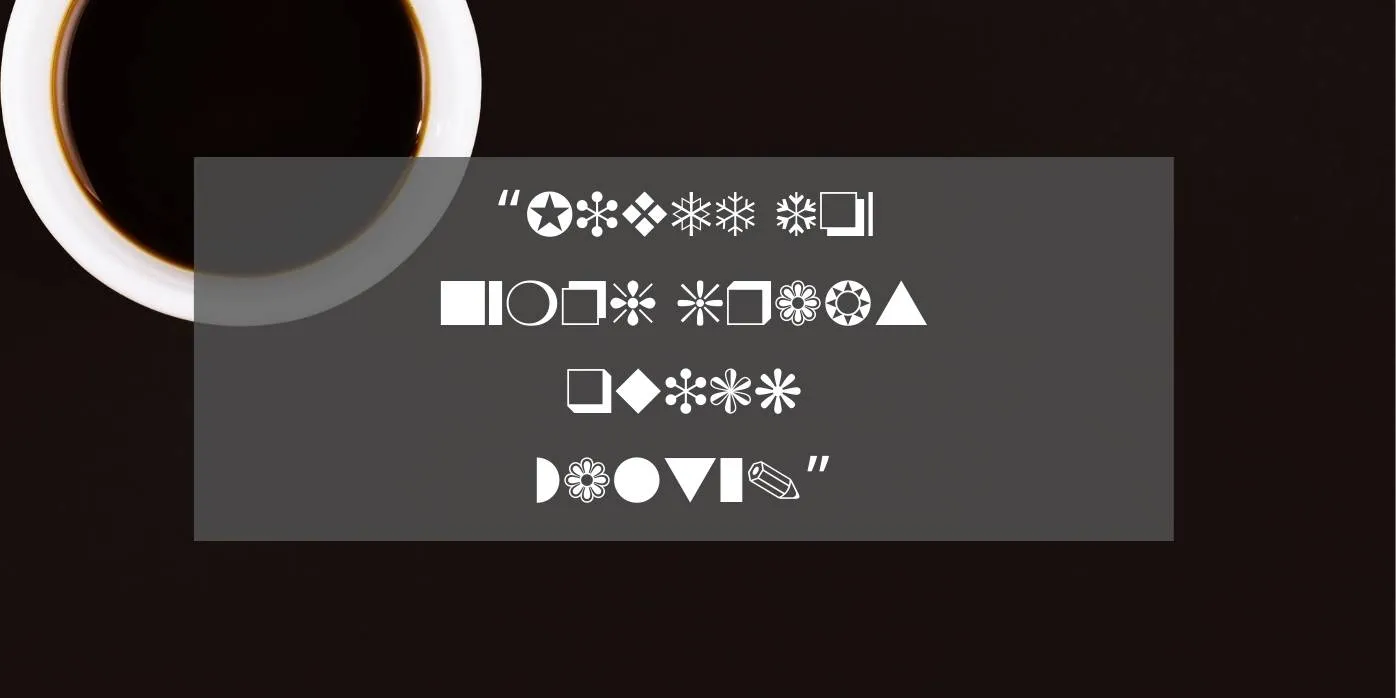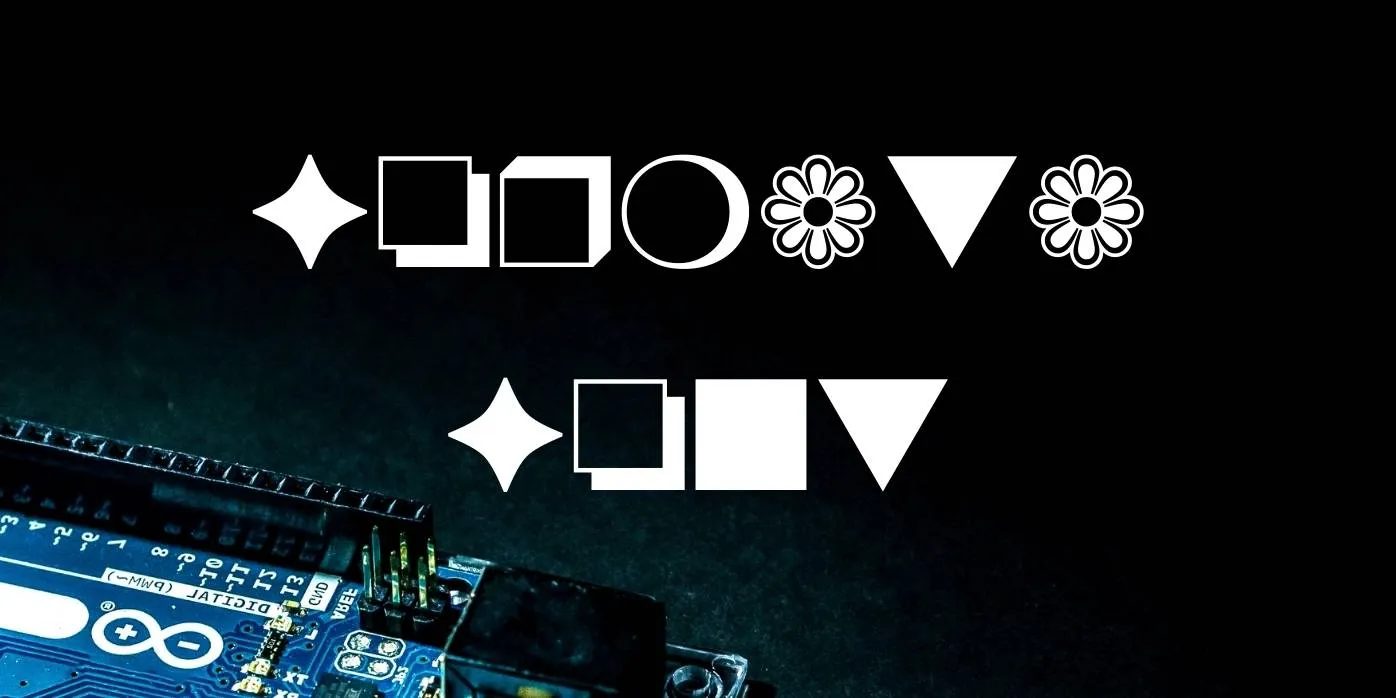
Zapf Dingbats Font
Zapf Dingbats Font is one of the lesser-known fonts that was designed by Hermann Zapf. This typeface belongs to the Dingbat typeface. It has a unique look and feel, which can make it a great choice for certain types of designs. This stunning typeface is the best and most popular for its copy and pastes function.
This cozy Font is available in both regular and bold weights, which can be useful depending on your design needs. This font is also relatively easy to find, so you shouldn’t have too much trouble locating it if you need it for a project. This typeface was firstly released to the public in 1984. This typeface is best for Adobe.
This stylish Font has a lot of characters. So, if you’re looking for a font with a wide character set, this might be the best option. It also features a variety of special characters, which can come in handy for certain designs. It is a stylish and versatile typeface that can be used for a variety of projects.
Haymaker Font is one of the most similar to this typeface.